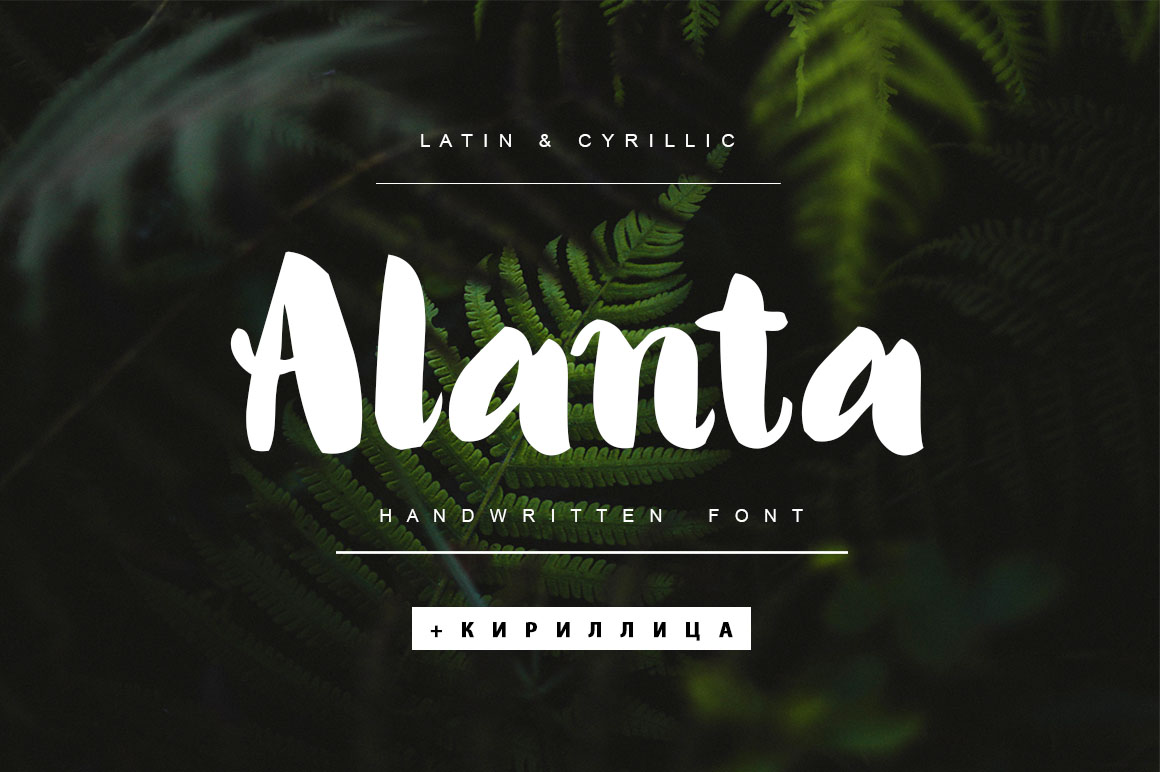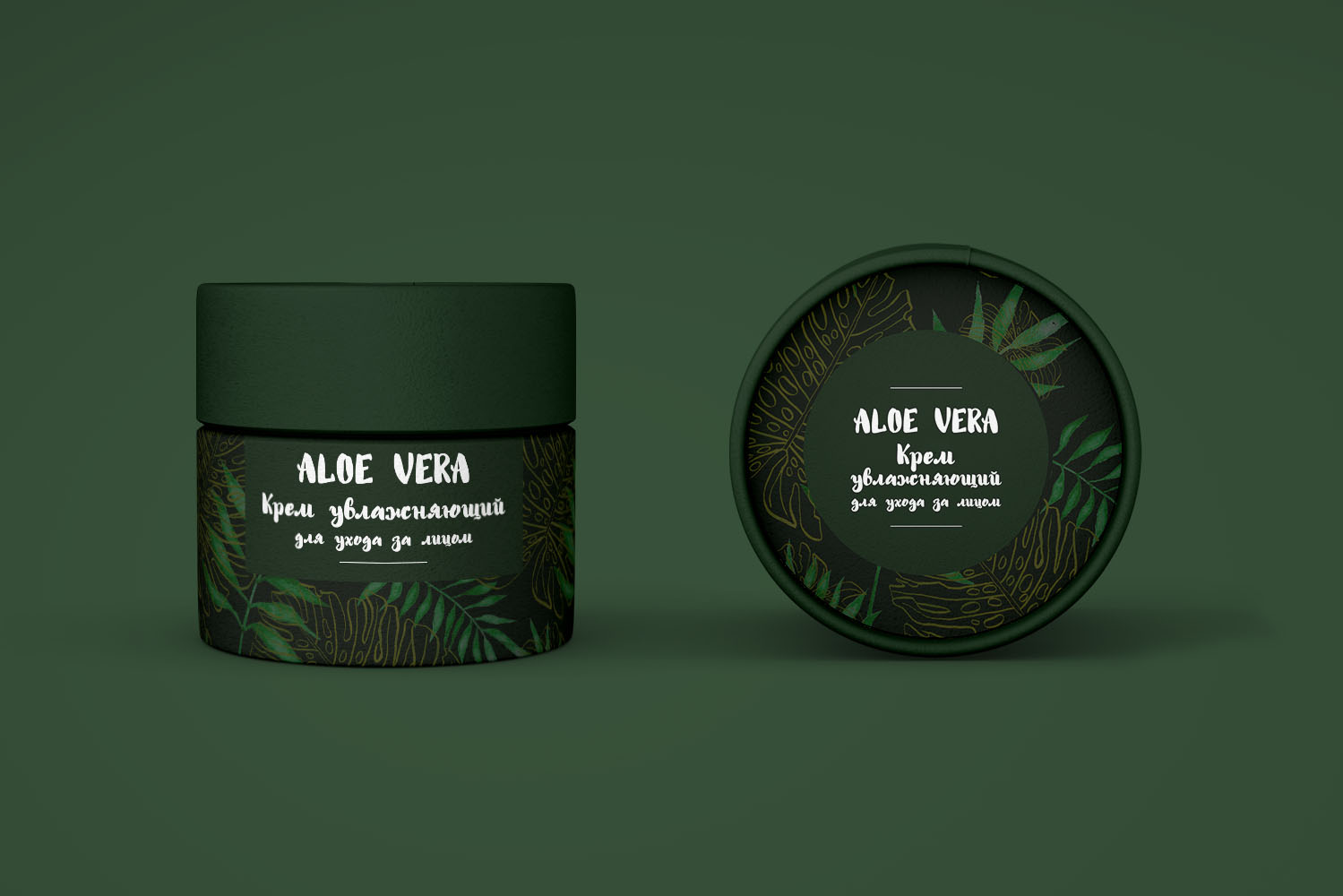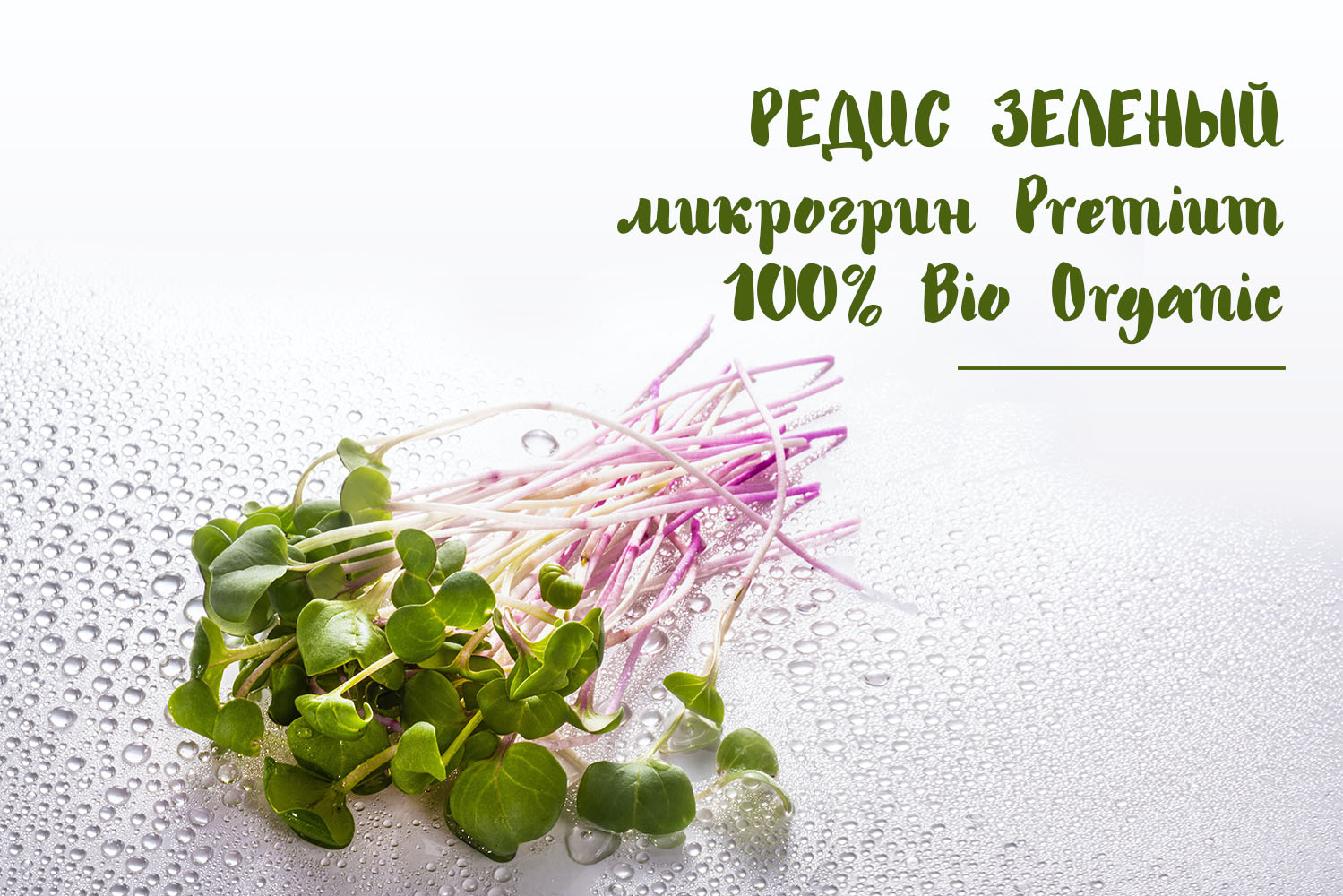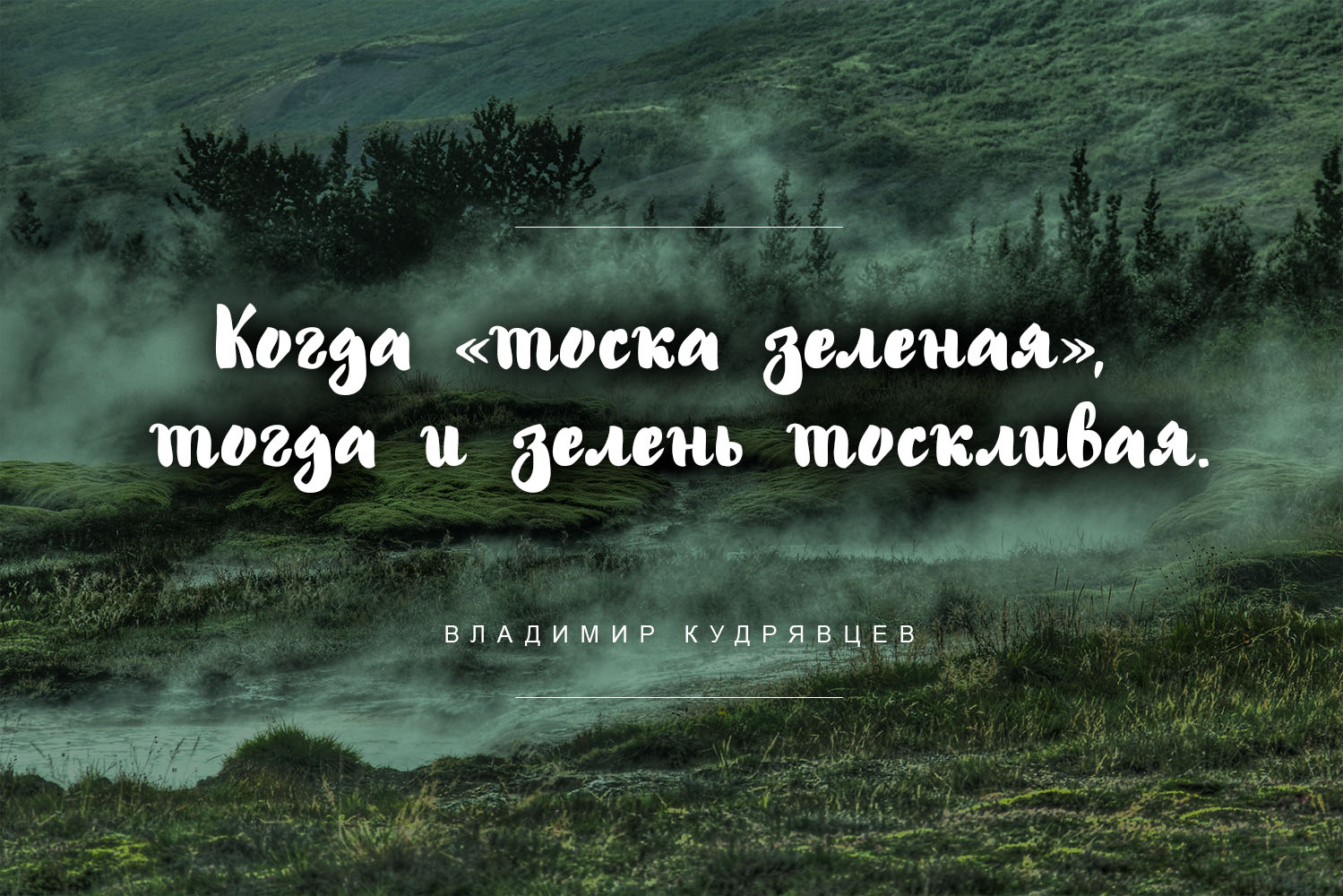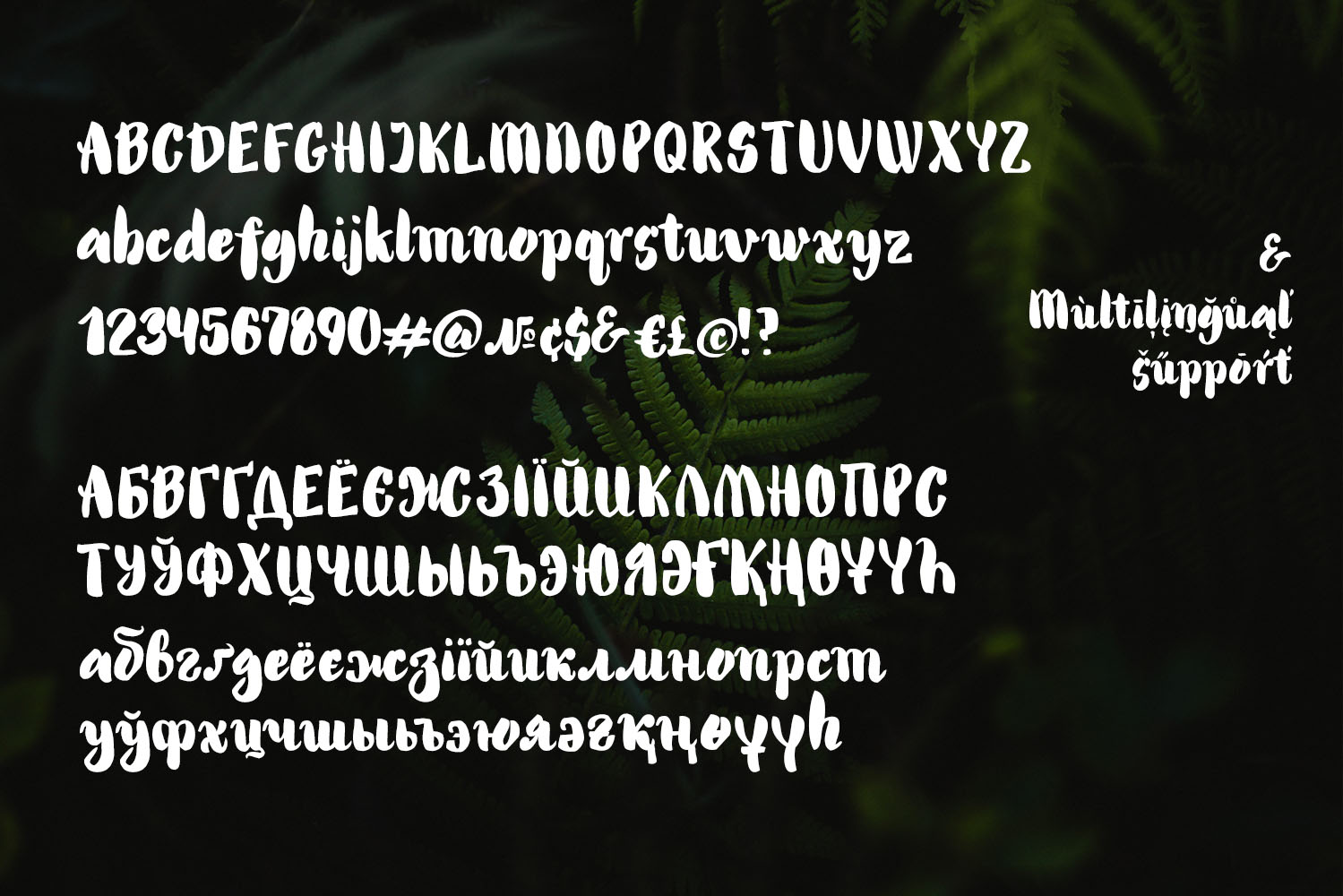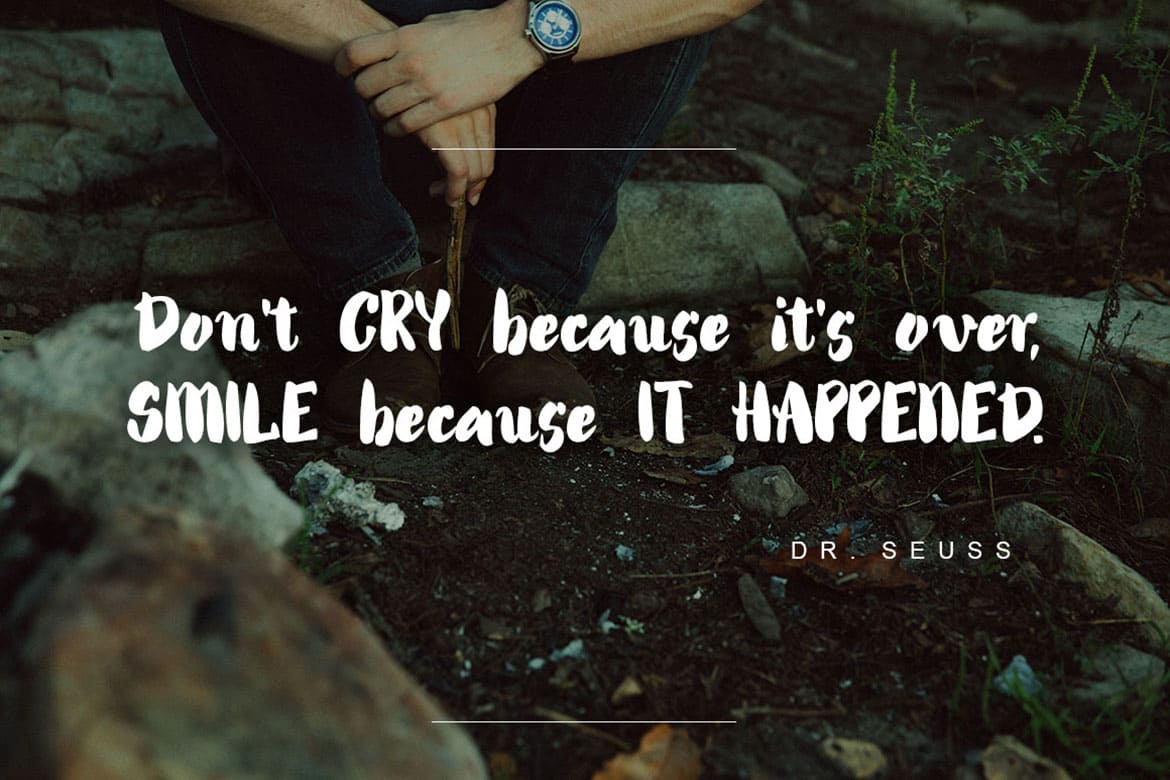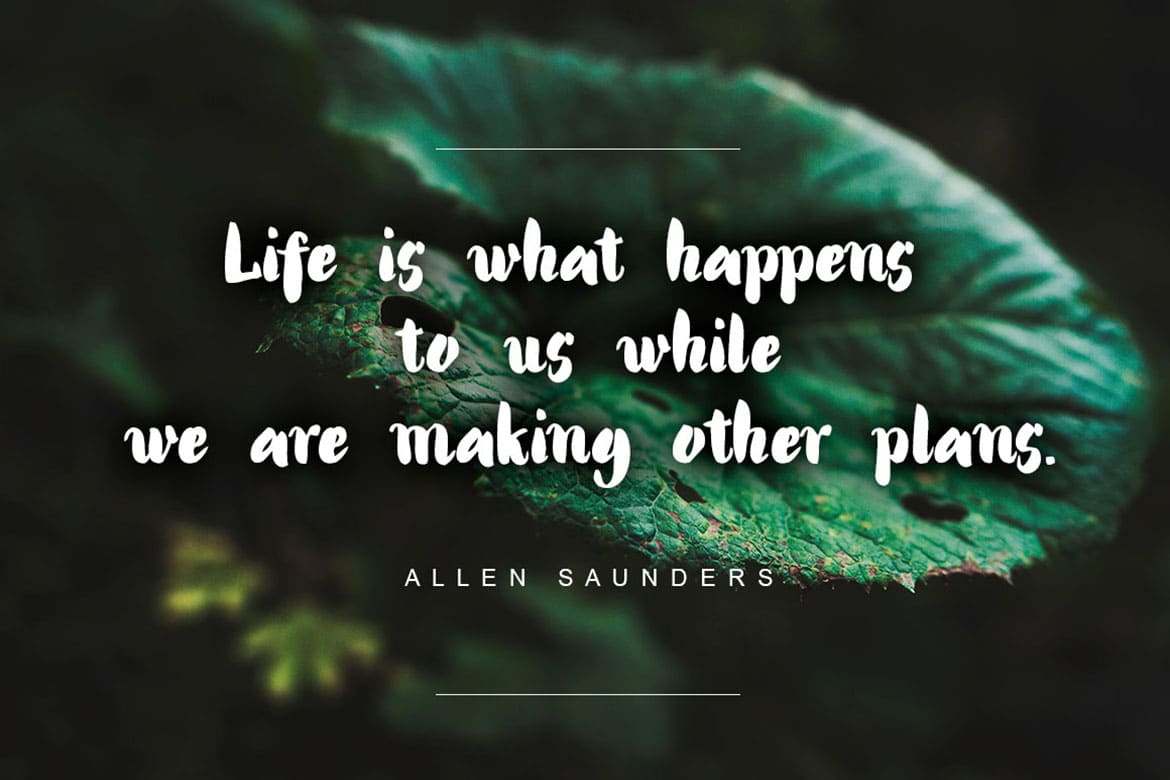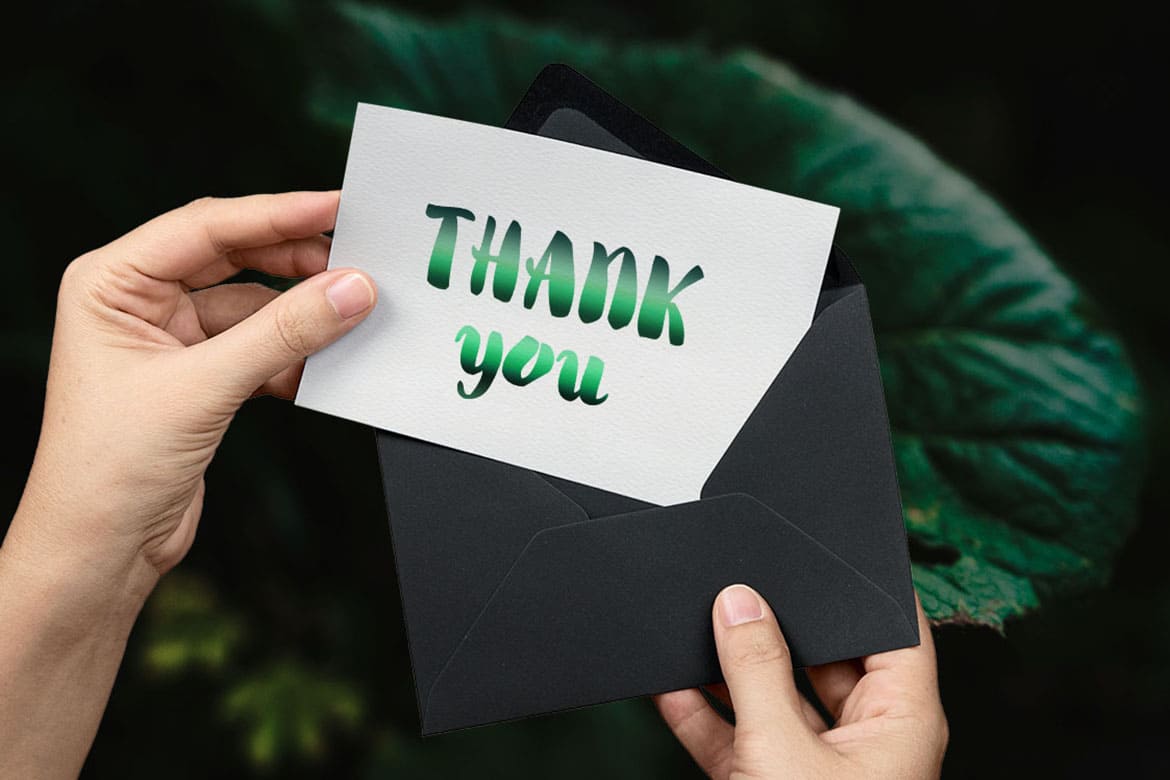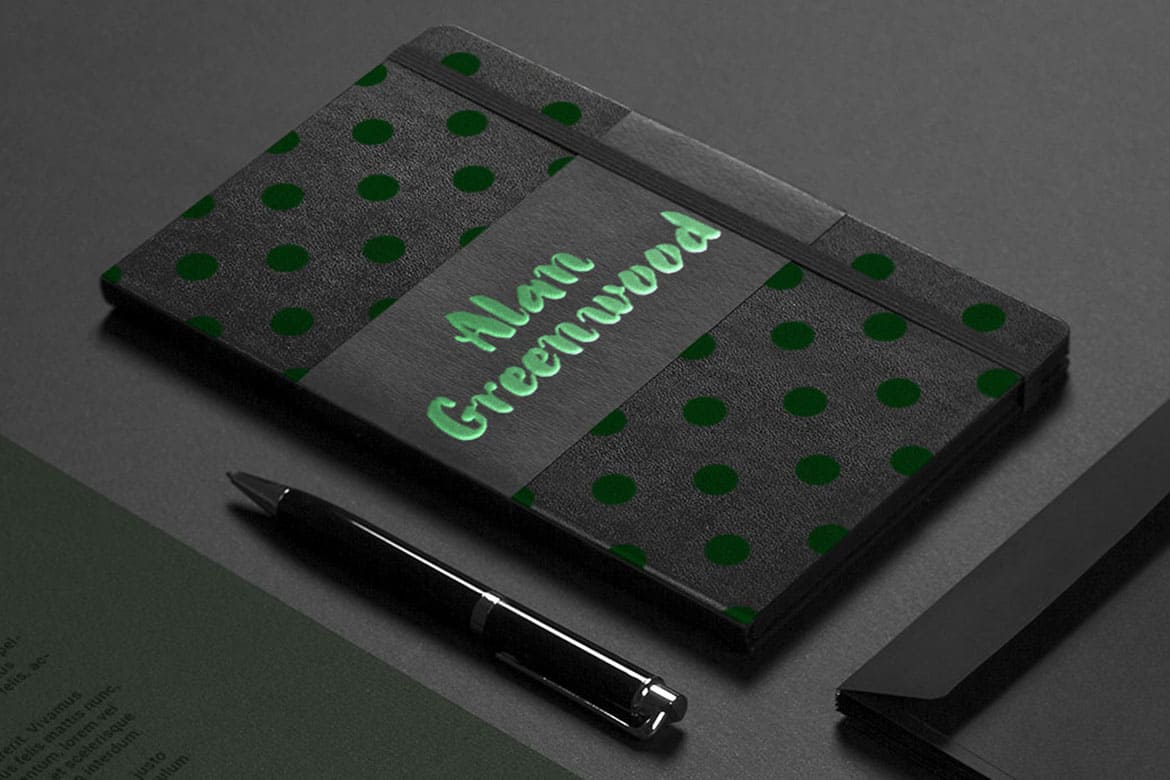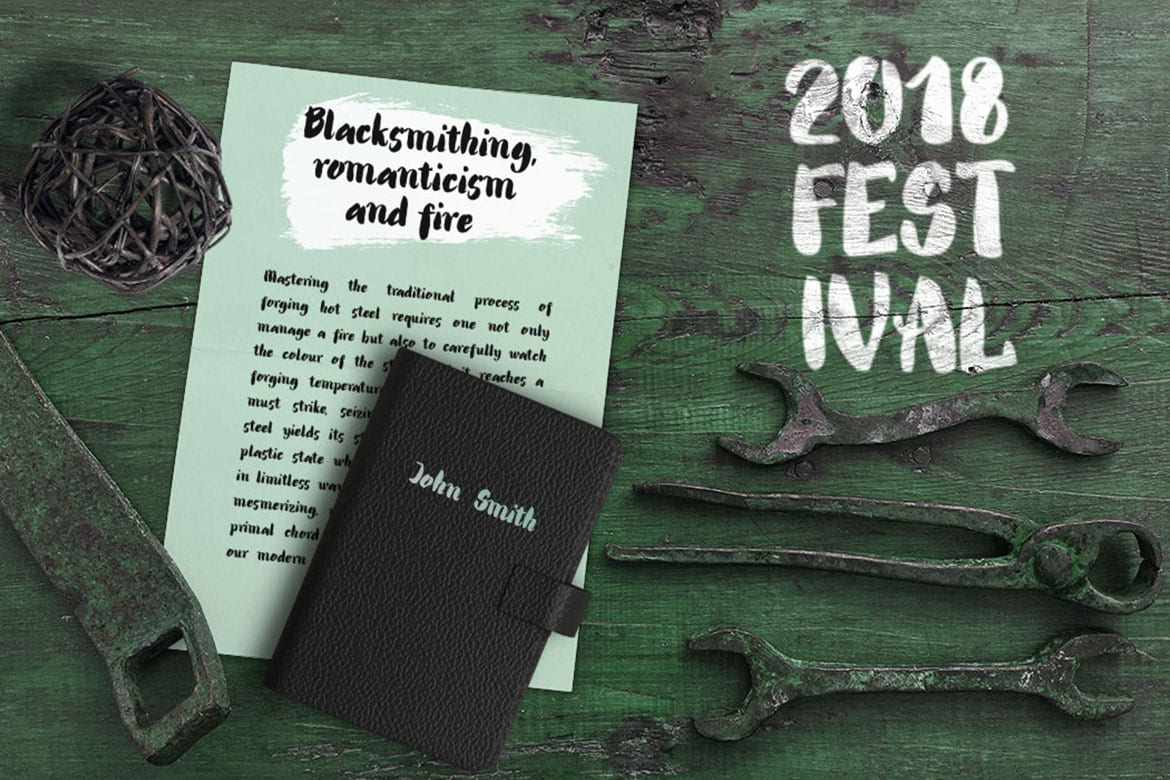
Alanta Cyrillic (1 font)
From Ira Dvilyuk
Alanta Heavy Handwritten script font Cyrillic includes a full set of gorgeous uppercase and lowercase letters, numerals, a large range of punctuation.
Extensive language support is included.
Multilingual Support for 31 languages: Afrikaans, Albanian, Basque, Bosnian, Catalan, Danish, Dutch, English, Estonian, Faroese, Filipino, Finnish, French, Galician, Indonesian, Irish, Italian, Malay, Norwegian Bokmål, Portuguese, Slovenian, Spanish, Swahili, Swedish, Turkish, Welsh, Zulu
And Cyrillic glyphs support for Russian, Belorussian, Bulgarian, Ukrainian, and Kazakh languages.